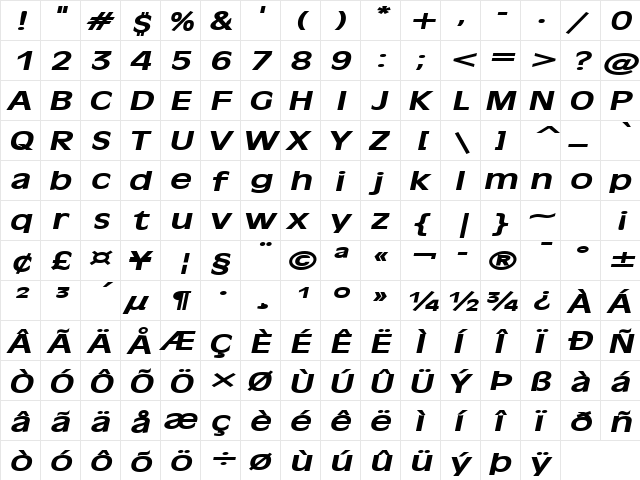
Antiqua 101 Extended BoldItalic Font Preview
Antiqua 101 Extended BoldItalic
Antiqua 101 Extended BoldItalic Font Details
Design Context for Antiqua 101 Extended Typeface
Antiqua 101 Extended is a composed and adaptable typeface that performs quietly and consistently across a wide range of design contexts. Its italic angle brings a sense of urgency and motion to the letterforms. The heavy weight commands attention and anchors typographic hierarchies.
Pro Tip: Use Antiqua 101 Extended for emphasis, pull quotes, and subheadings where its slanted energy can add rhythm to the layout.